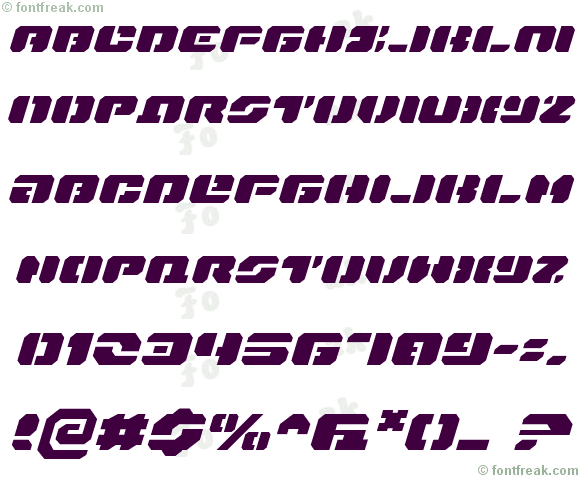
Dan Stargate Condensed Italic
Dan Stargate
Dan Stargate Leftalic
Dan Stargate Expanded Italic
Dan Stargate Condensed
Dan Stargate Expanded
Dan Stargate Outline
Dan Stargate Pro Italic
Dan Stargate Outline Italic
Dan Stargate Extra-expanded Italic
Dan Stargate Pro
Dan Stargate Italic
Dan Stargate Extra-expanded
Dan Stargate, designed by Iconian Fonts, is a captivating display font that falls into the category of decorative typefaces. This unique typeface features a condensed and italic style, making it ideal for projects that require a modern and bold aesthetic. The strokes exhibit a substantial weight with minimal contrast, giving the font a strong presence. Its left-aligned italic slant adds a dynamic touch, while the expanded outline design enhances its visual appeal, making it stand out in any layout.
The Dan Stargate font is particularly suited for a variety of creative applications. It can be effectively used for movie posters, where its futuristic vibe captures attention and conveys a sense of adventure. Additionally, it works well for event invitations, especially those themed around science fiction or fantasy. Graphic designers may find this font perfect for branding and logo design, where a unique and memorable typeface is essential. It can also be employed in web design, providing an engaging element to headings or promotional banners. Small business owners looking to establish a distinctive brand identity will also appreciate its striking characteristics.